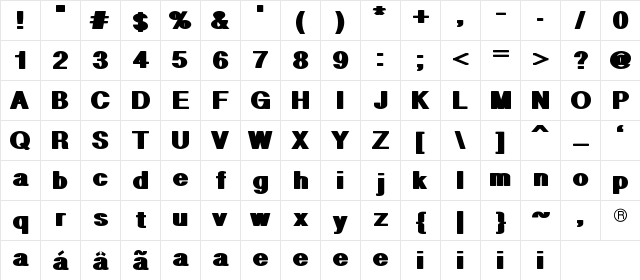
Geometric Regular
Design Context for Geometric Typeface
Geometric offers clean, dependable letterforms without strong stylistic allegiance, making it a practical choice for designers who need flexibility.
Pro Tip: Use Geometric in both headline and body roles to test its range before committing to a single application.